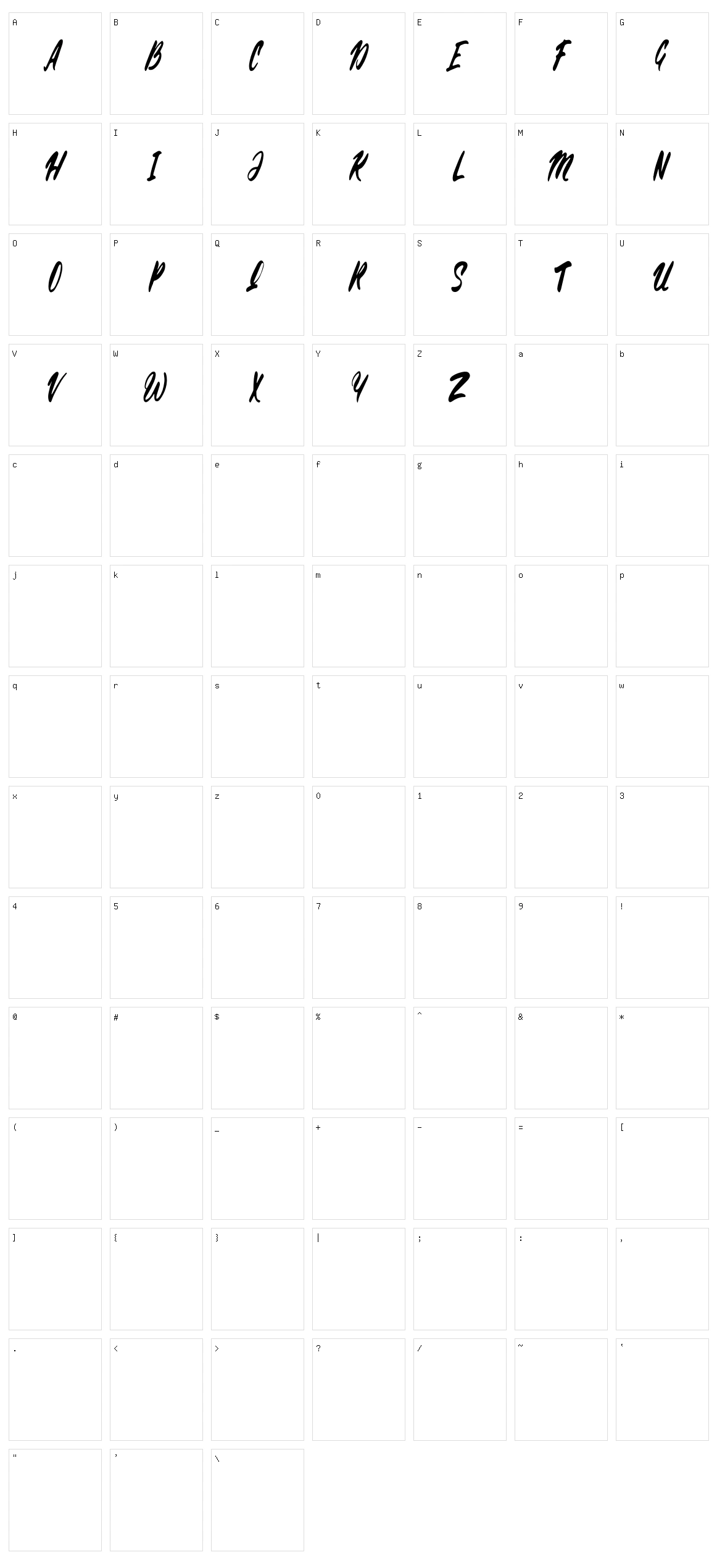
The free font Inet2 is carefully designed by Andrian Maulana, showcasing a thoughtful balance of creativity and usability and falls under the Script font style. When you download the ZIP file, it contains only 7.41 KB of font files, making it lightweight and quick to download. Please review the license details below to understand permitted usage and distribution rights. If license information is not available, we recommend using this font for personal projects only or contacting the author directly for commercial usage permissions.